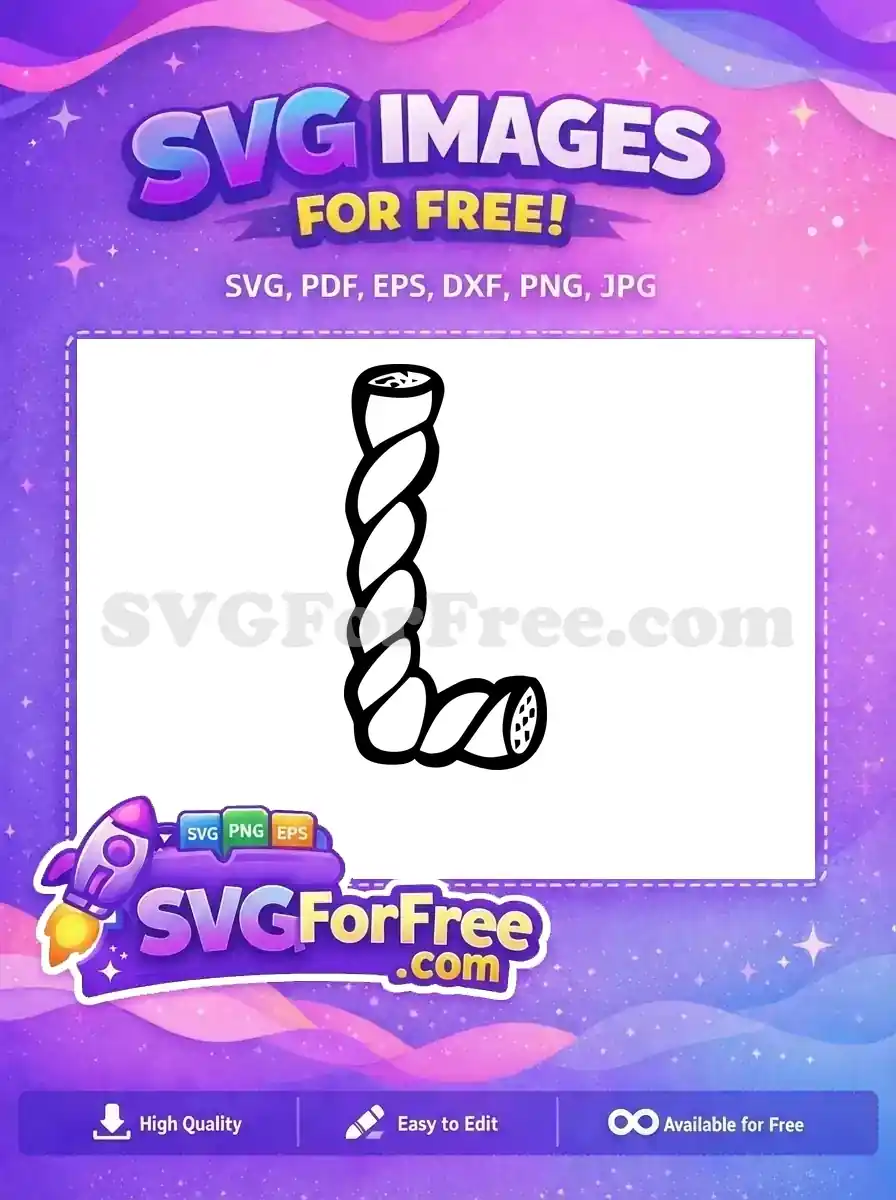
Free Twisted Rope Font Free Letter L Free SVG – Instant Download
Rope font letter L with visible strand details, a free vector variant.
Free Twisted Rope Font Free Letter L Free SVG